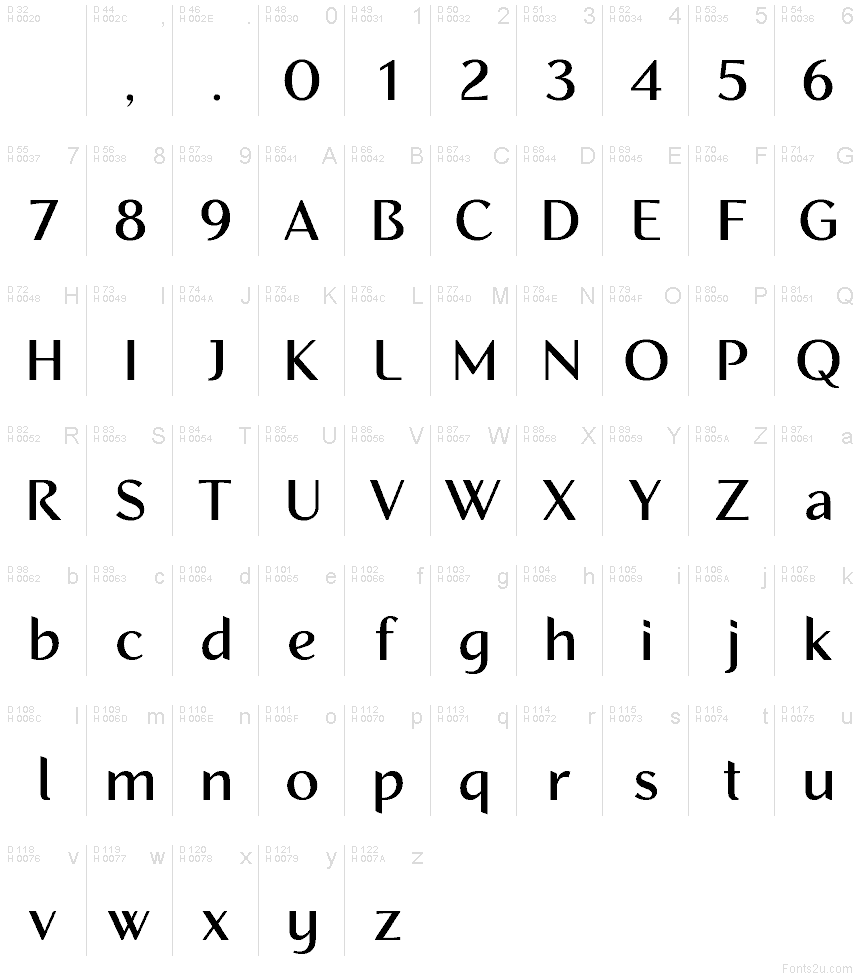
Recline Medium font by Digitype Studio is a free sans serif typeface with a striking sculptural twist. Its tapered strokes and blade-like edges give each letter a poised, reclined stance, while the smooth inner curves keep the texture readable and refined. The rhythm feels deliberate-confident spacing, crisp terminals, and a quietly luxurious finish that catches the eye without shouting.
Using Recline Medium, headlines and posters gain a chic, editorial polish; it also shines on beauty branding, fashion lookbooks, upscale packaging, album art, and magazine covers. This free font carries weight in large sizes yet stays clear at subheads. Pair it with the rest of the Recline family or a neutral grotesk for body text to let the sculpted forms breathe.
Recline comes in 10 weights, 5 straight & angled.